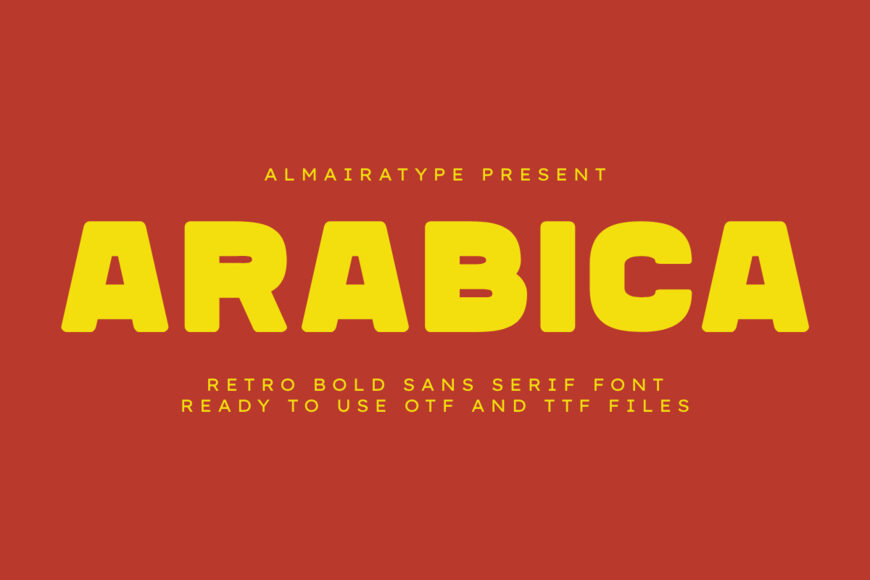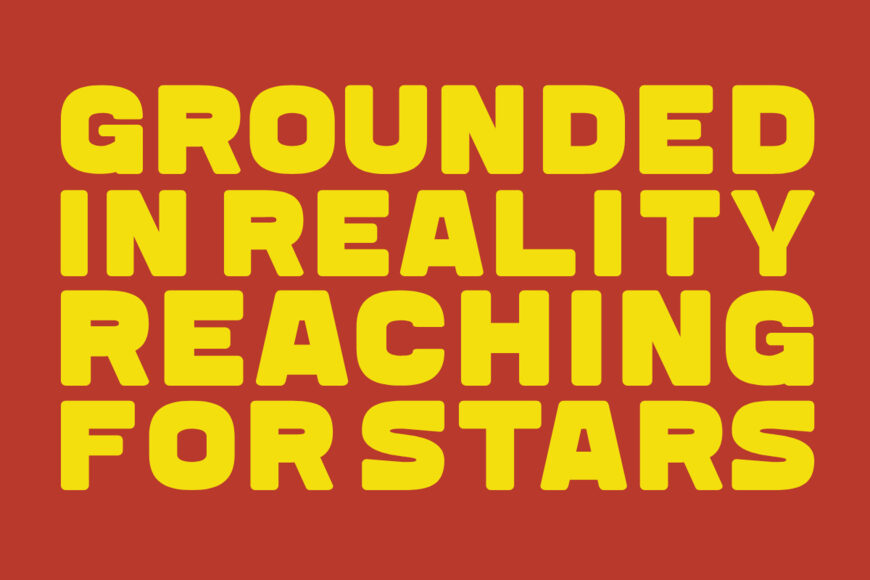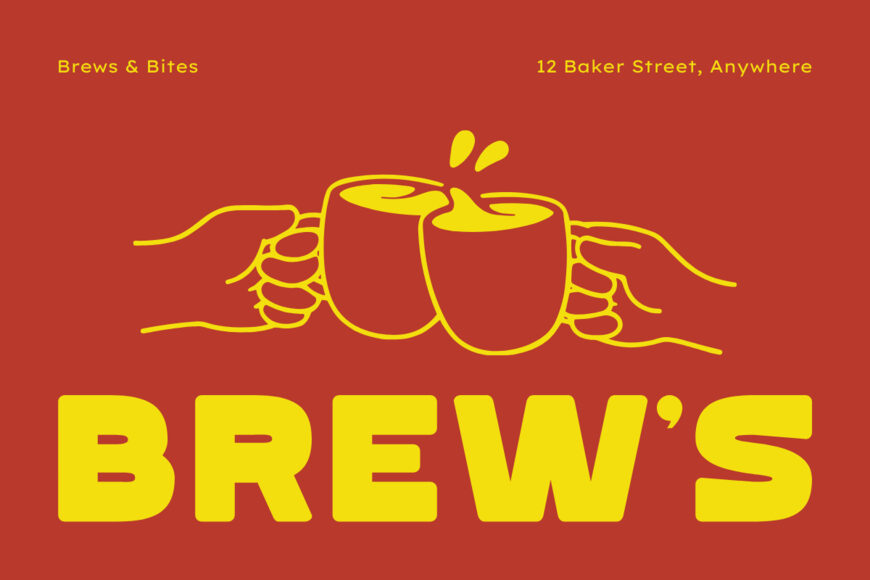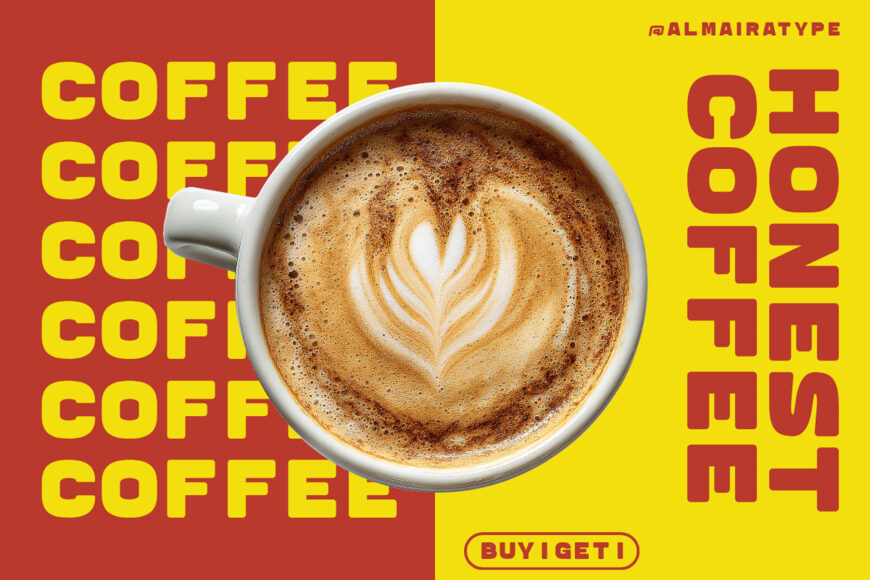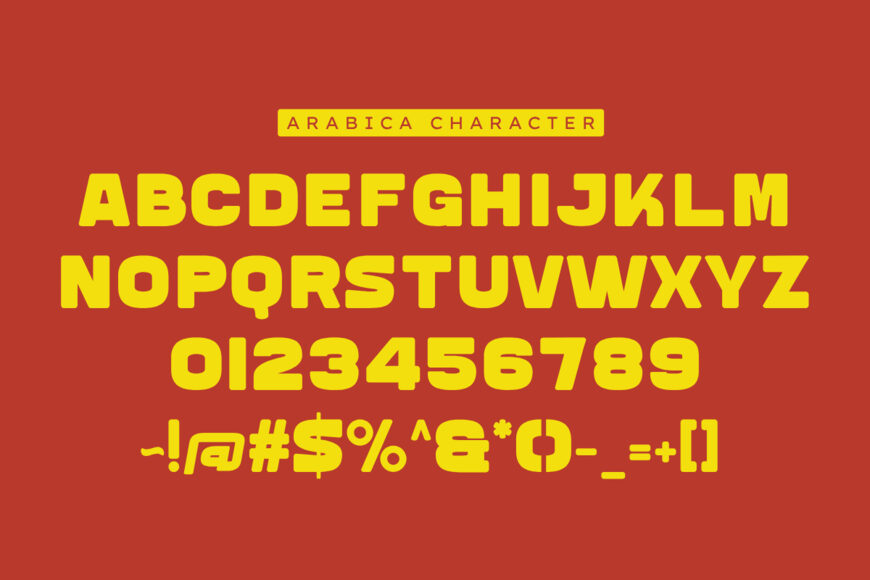
Arabica is a retro bold sans serif font meticulously designed to bring a delightful vintage warmth and high-impact aesthetic to your modern creative projects. Featuring a bubbly, thick structural anatomy with a solid display weight and smoothly rounded geometric contours, this typeface beautifully bridges the gap between classic 70s nostalgia and contemporary commercial design trends.